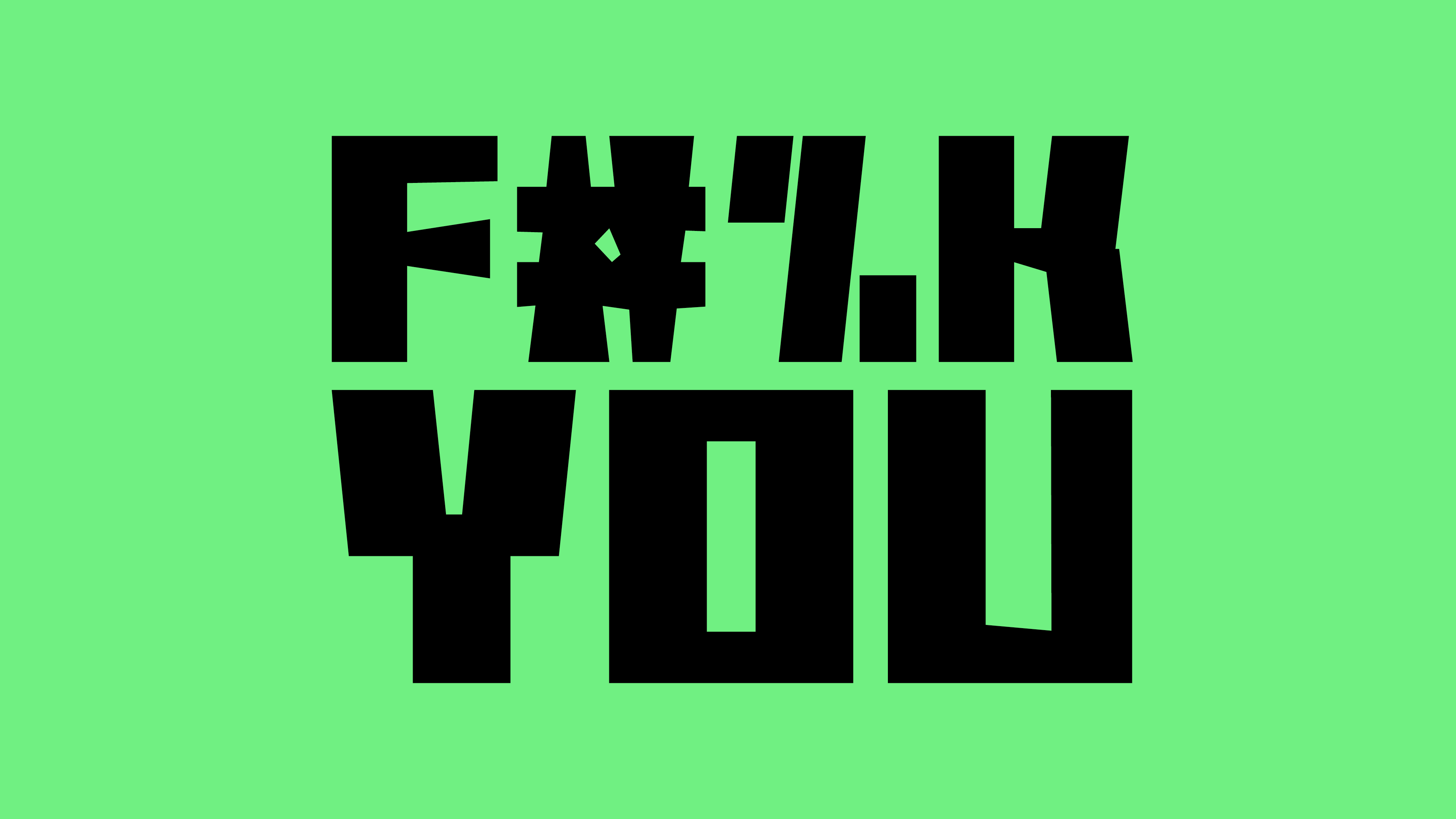
F37 Rage
Boxy with aggressively angular features, F37 Rage is a font that has certainly earned its name.
This uni-case font comes in three styles. The styles Up and Down take their names from the dynamic motion of the letter forms. The Up style looks towards the cap height, with its cross bars, counters, and pretty much everything else pointed... up. Down follows this same logic, only this time towards the baseline. Regular is the more subdued of the family, but only in comparison to the other styles. Regular like the rest of the family, boast unique letter forms, energetic angles, and a sturdy appearance. When used in the variable format, F37 Rage’s rigid appearance morphs to reveal a fluidity that is perfect for eye catching animations.
F37® × Haider Muhdi
The Designer
Graduated from Lancaster University with first class honours, Haider has collaborated with some of the most prolific design and advertising agencies such as Uncommon Creative Studio, Wolff Olins, Mother Design, Droga5, Landor and R/GA.
Haider maintains a diverse client list with the likes of EA Sports FC, Nike, Virgin, New York Fashion Week, Uber and Fac 51 / The Haçienda to name a few. A conscientious all round designer and typographer with an appetite for brand disruption and a keen eye for art direction. His approach is always based on a strong conceptual vision married with an elegant design solution. His work has won recognition from Cannes Lion, D&AD, RSA and Type Directors Club.